Which fonts would BE Ultimate suggest we use for our designs?
Sharing information about the top suggested fonts we know and love!
For designs, fonts really matter (read more here!). A reminder that we strongly recommend picking one font for numbers & names (matching).
Here are four reliable categories to guide your choice:
Athletic / Classic Sports FontsBest for: Teams wanting a traditional, professional look
Varsity
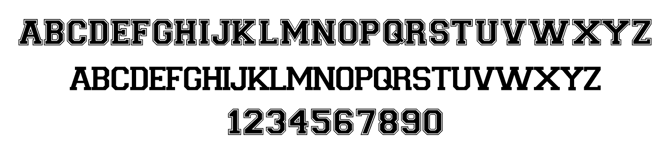
College
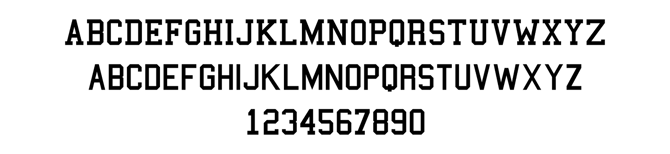
Jersey M54
Northwester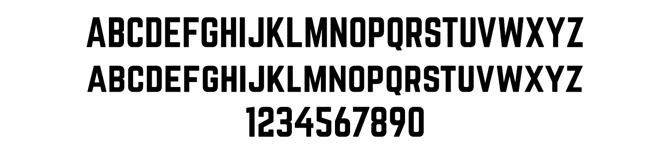
Aldo the Apache
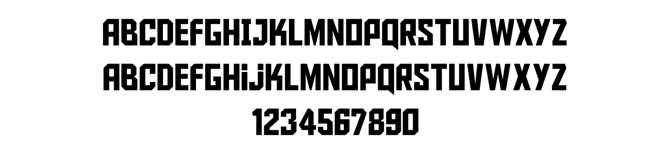
Square Slabserif 711 Pro
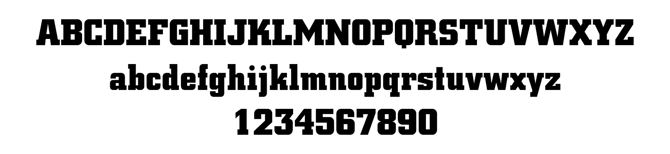
NCAA Baylor Bear Paw
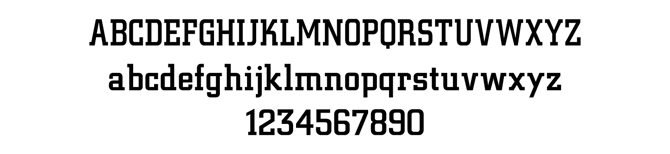
NFL Texans
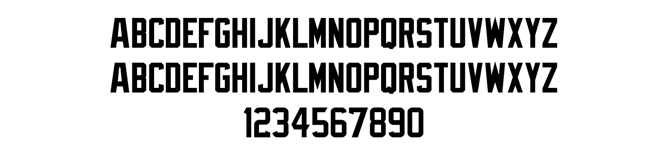
Phantom Storm
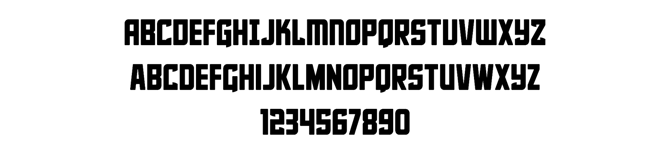
Best for: Most teams (safest and most versatile option)
Bebas Neue
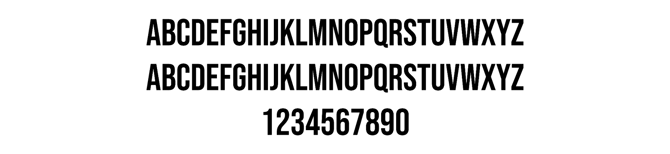
Oswald
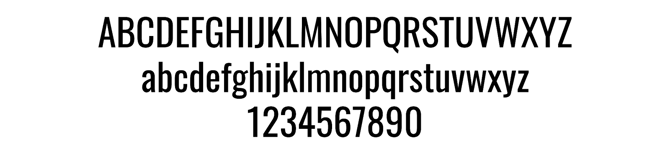
DIN Condensed
Anton
Acumin Variable Concept
Bahnschrift
Tandelle
Best for: Youth teams and community-focused clubs
Alte Haas Grotesk
Arial Rounded MT Bold
Freude
Bungee
COCOGOOSE
Comicy
Cute Dino
Hobeaux
Magical Playful
Best for: Teams wanting a contemporary edge
Biko
Futura 100
Audiowide
Capitol City Bold Straight
Chalet
Gala
Hanzel Condensed
Lucidity
Patriot
Reminder: a good jersey font should work:
- From 30+ meters away
- On all jersey sizes
- While players are in motion
If it checks those boxes: you’re in a great place!